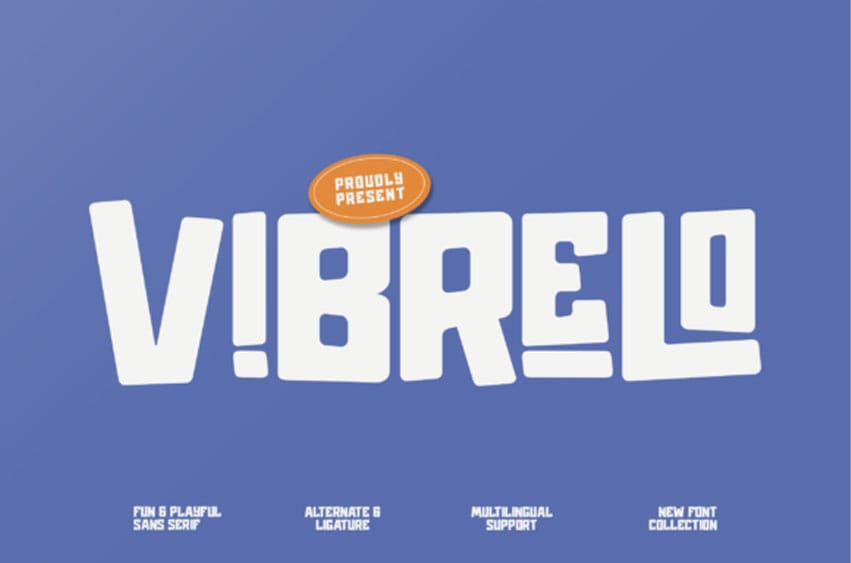
Vibrelo Font is a fun and playful sans-serif display typeface designed to bring joy, movement, and energy to your designs.
With its bold shapes, quirky proportions, and lively character, Vibrelo captures a sense of creativity and excitement that makes every word pop with personality. Perfect for logos, posters, packaging, children’s projects, or social media visuals, Vibrelo adds a friendly and expressive touch that instantly grabs attention.